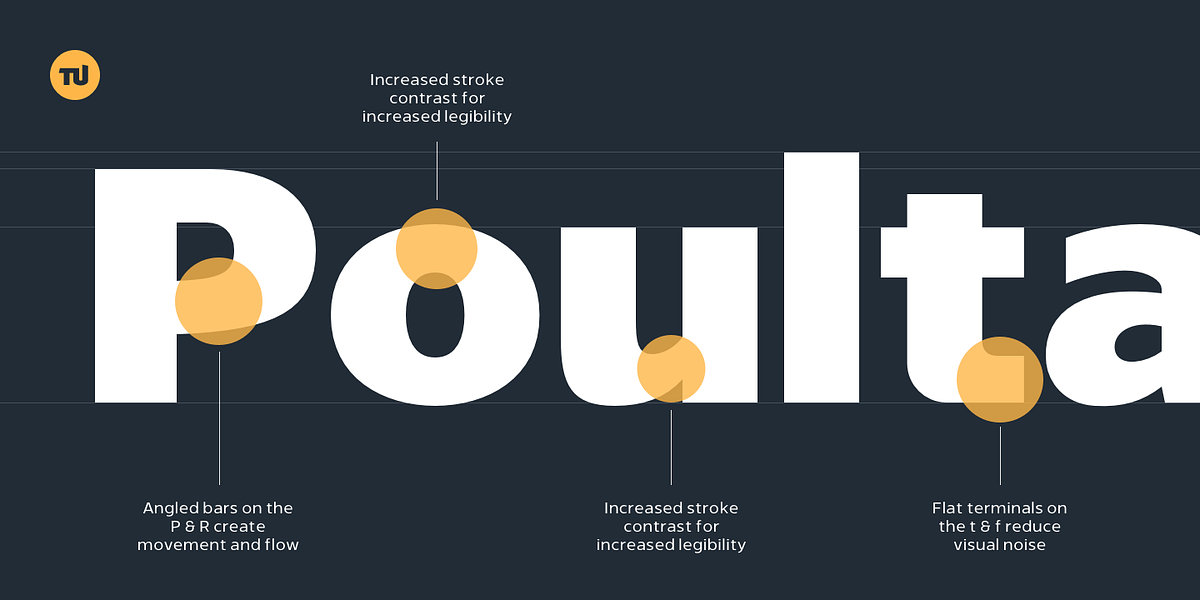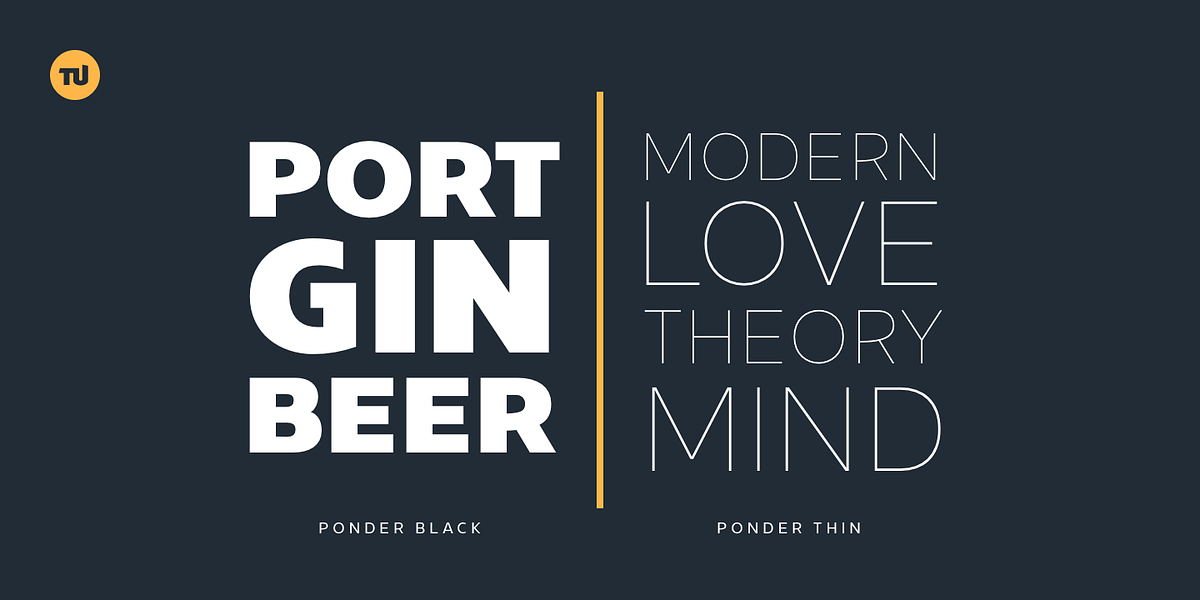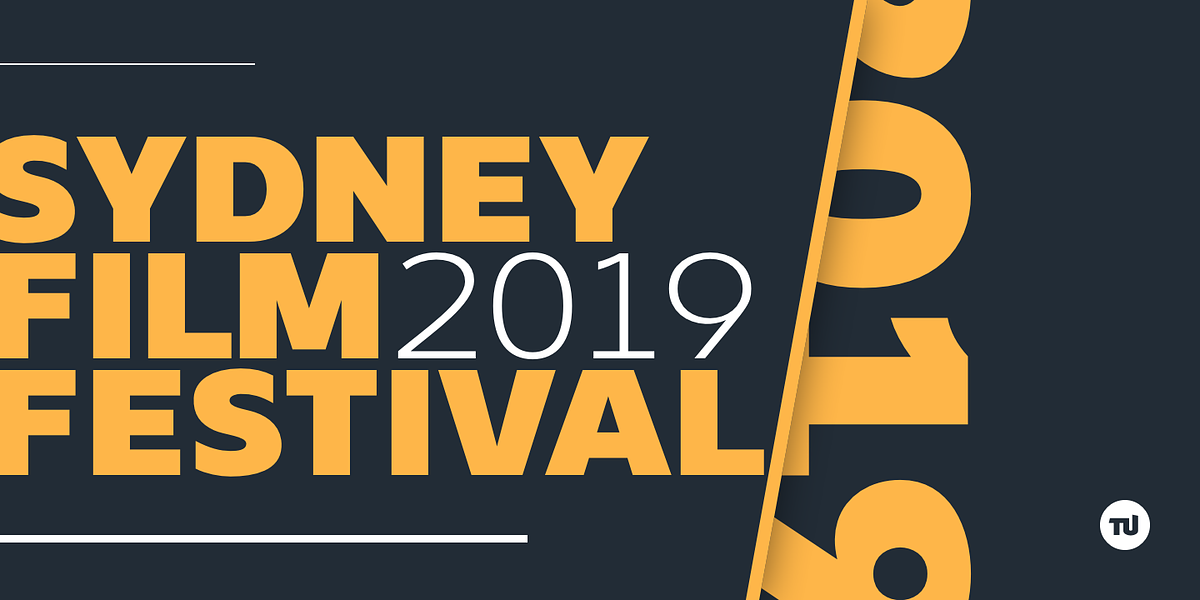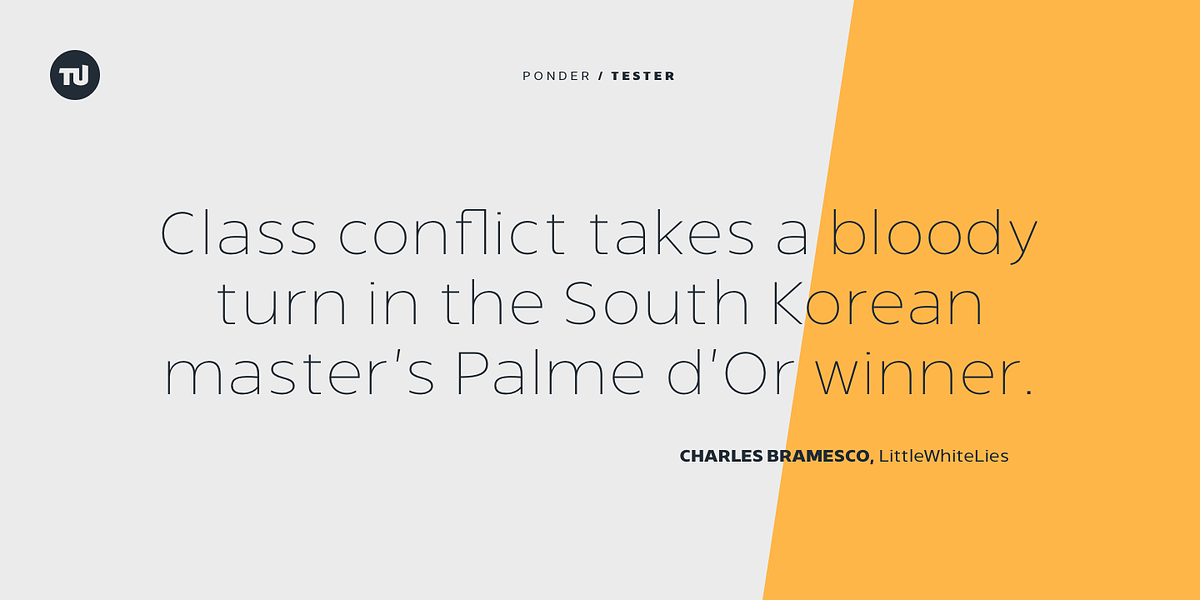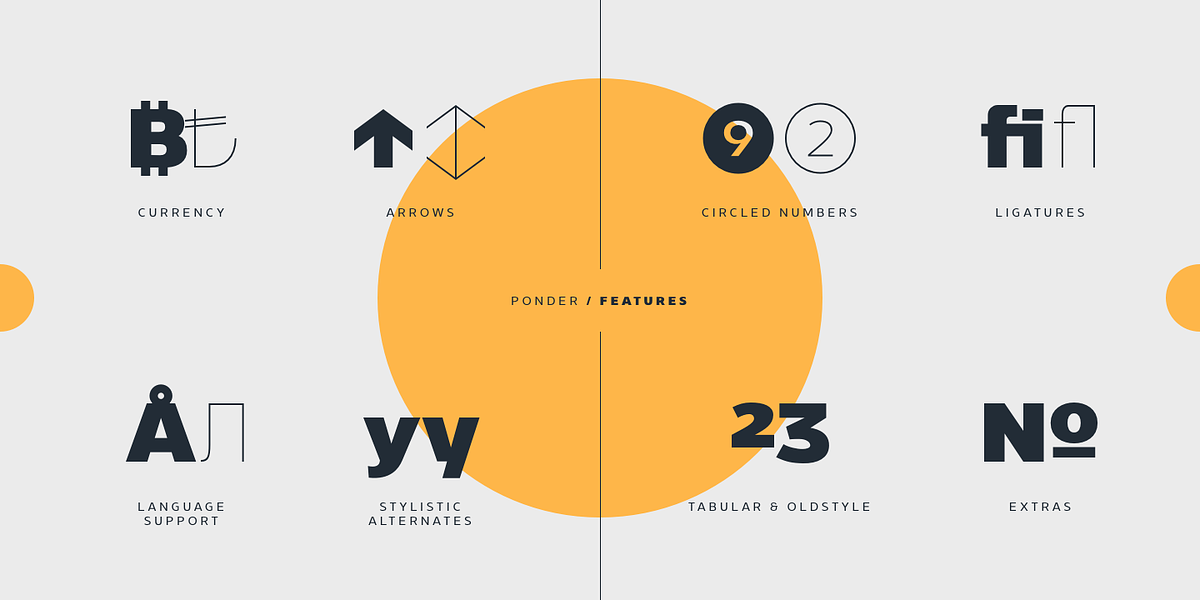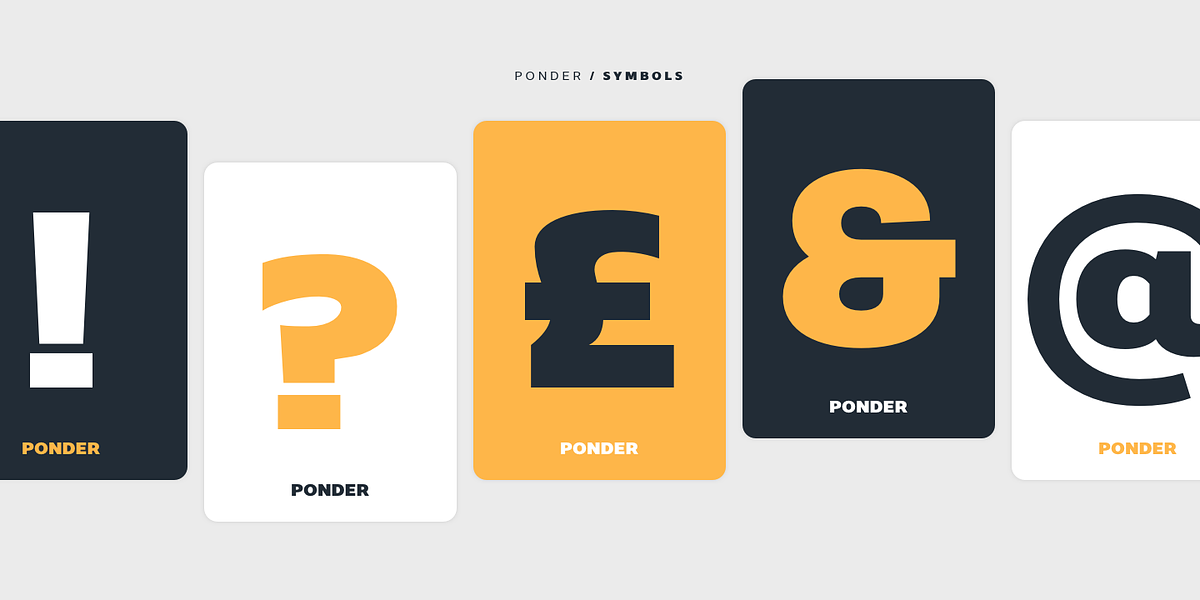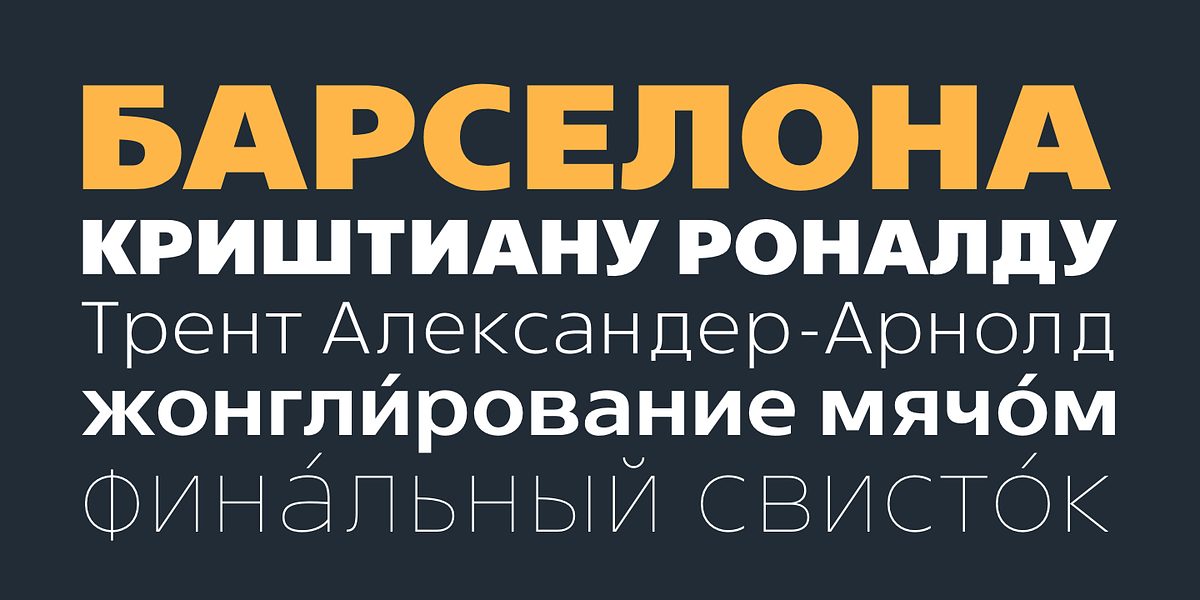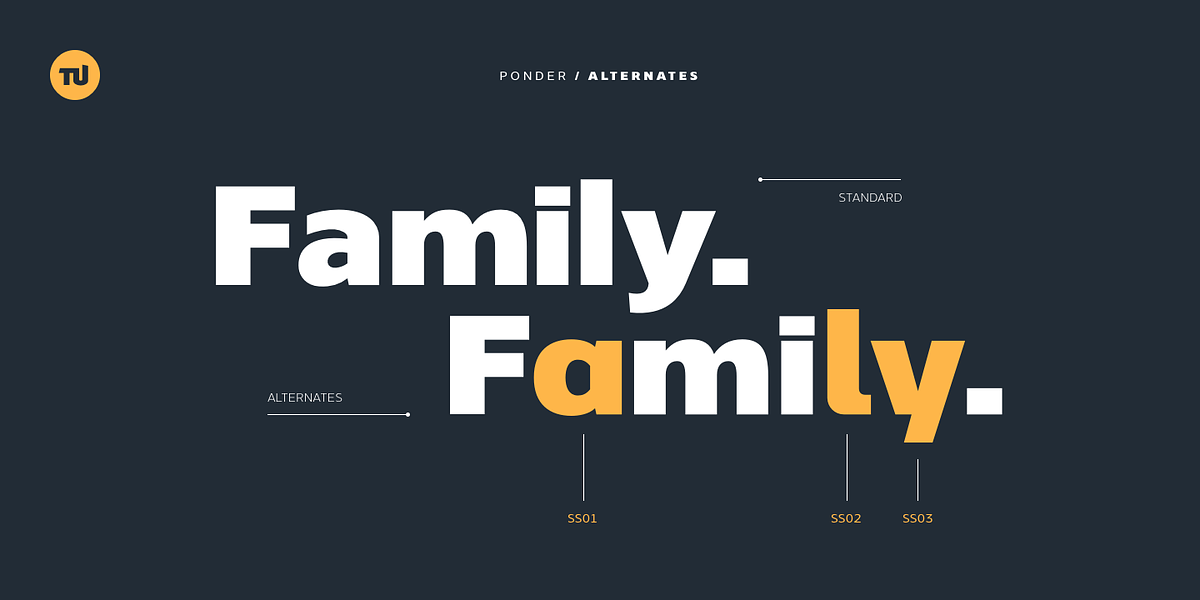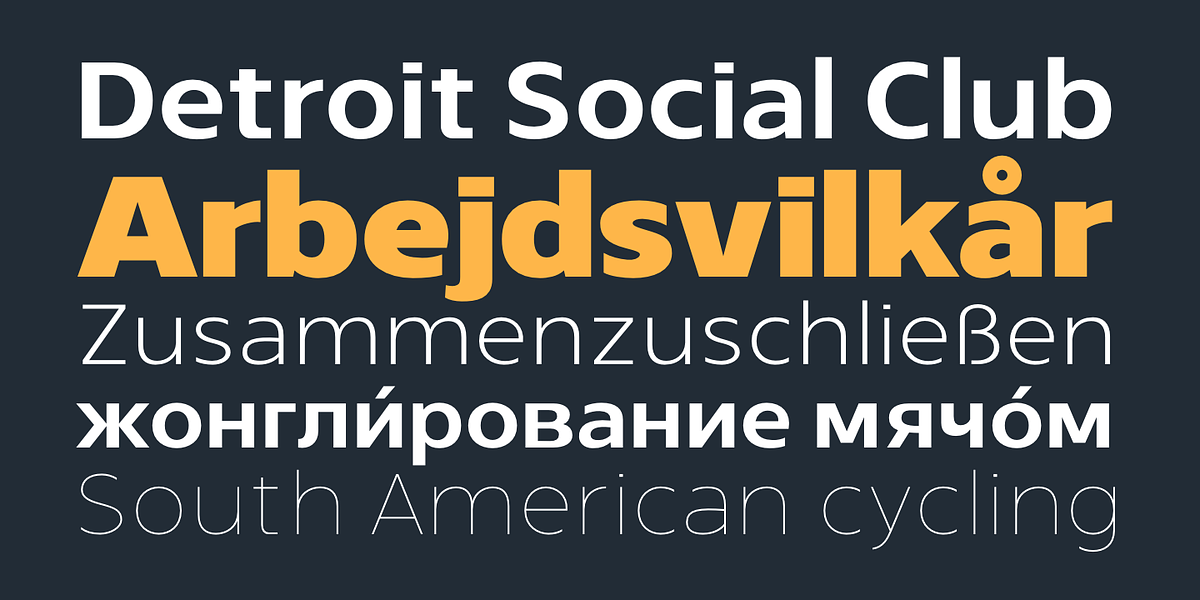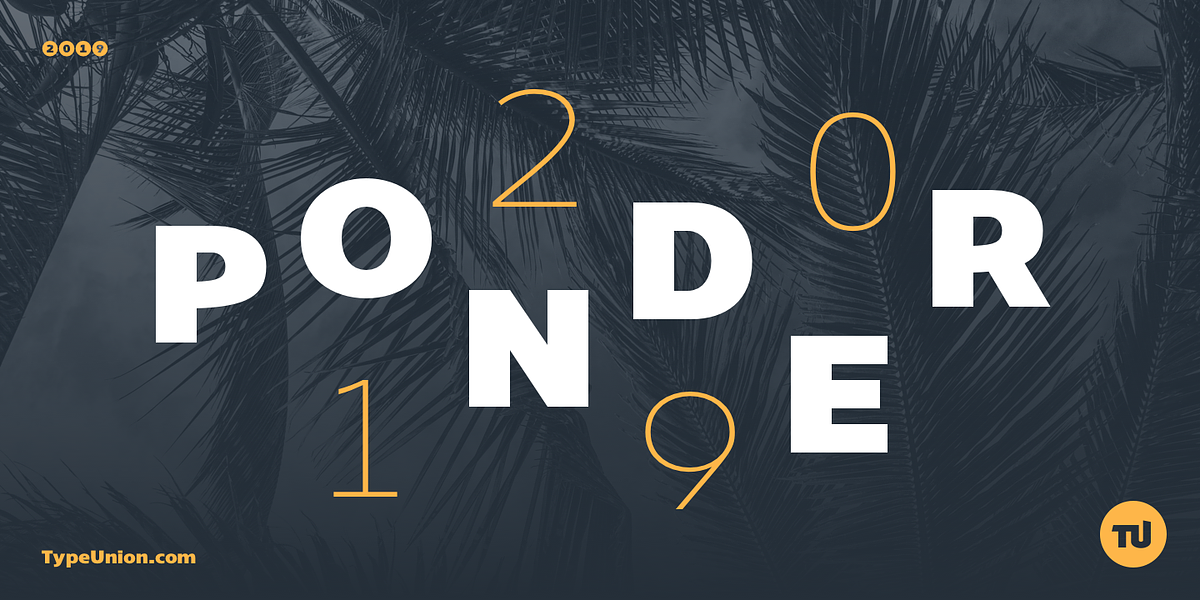
Ponder
Ponder is a modern sans-serif typeface designed for versatility. It features over 650 glyphs and includes stylistic alternates for characters like 'a', 'l', 'y', and '&'. The font has a unique feel due to contrasting strokes in heavier weights and angled bars on the 'P' and 'R'. Ponder offers extensive language support for Latin and Cyrillic scripts, along with OpenType features such as ligatures and different numeral styles.